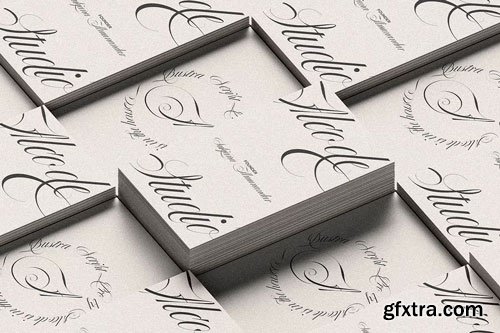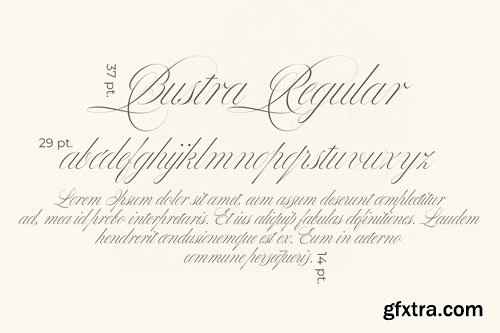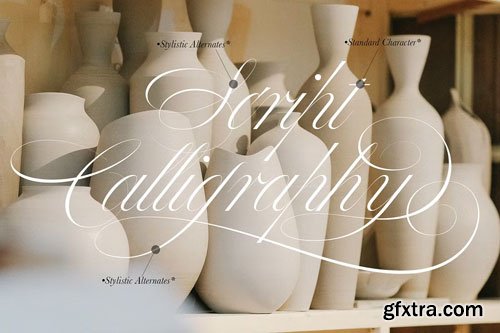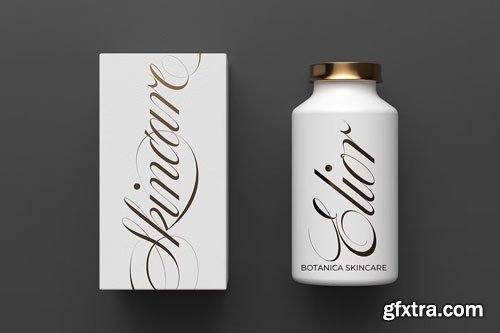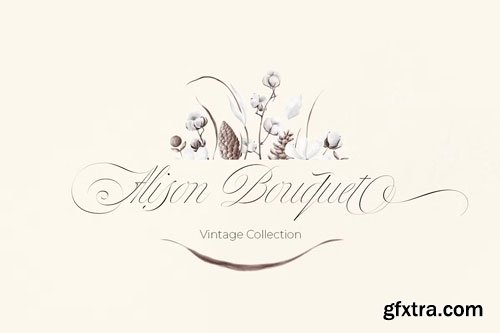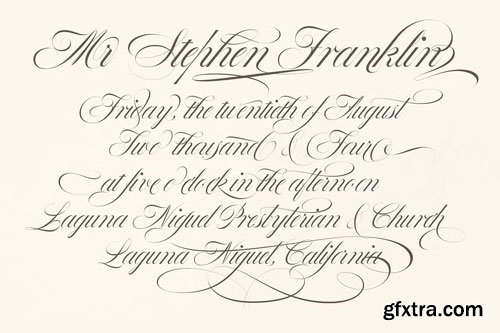
Bustra Script is a luxurious and elegant font family that comes in 9 different thicknesses plus a variable file format that will bring a unique style and classic look to your designs. Packed with on-trend ligatures and custom characters, it will make the Bustra Family usable in any design project and works perfectly to pair with other fonts. With this font you can create designs such as wedding media, book covers, greeting cards, logos, branding, business cards and certificates, even for any design work that requires a classic, formal or luxurious look.